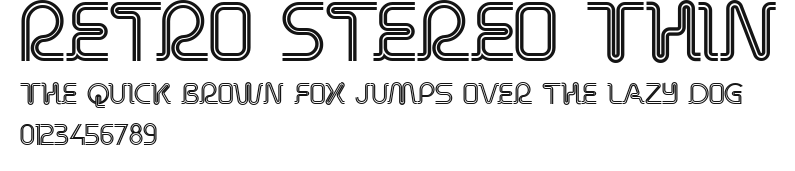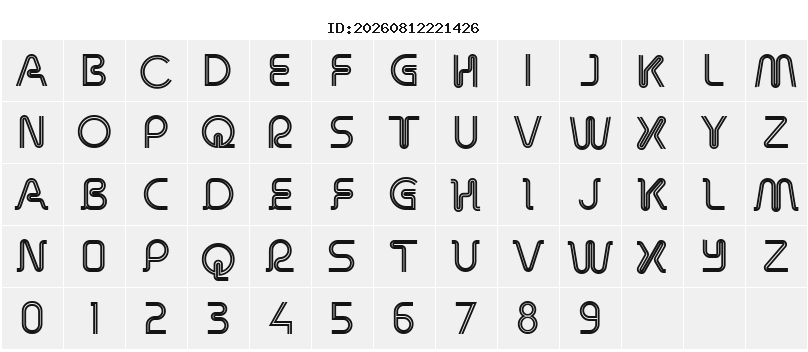
• Designer: Thessalos Design, Ltd
About Retro Stereo Thin.ttf
Retro Stereo Thin.ttf is a modern, elegant sans-serif font designed for ultimate readability and visual harmony. Perfect for branding, headlines, web design, and print materials.